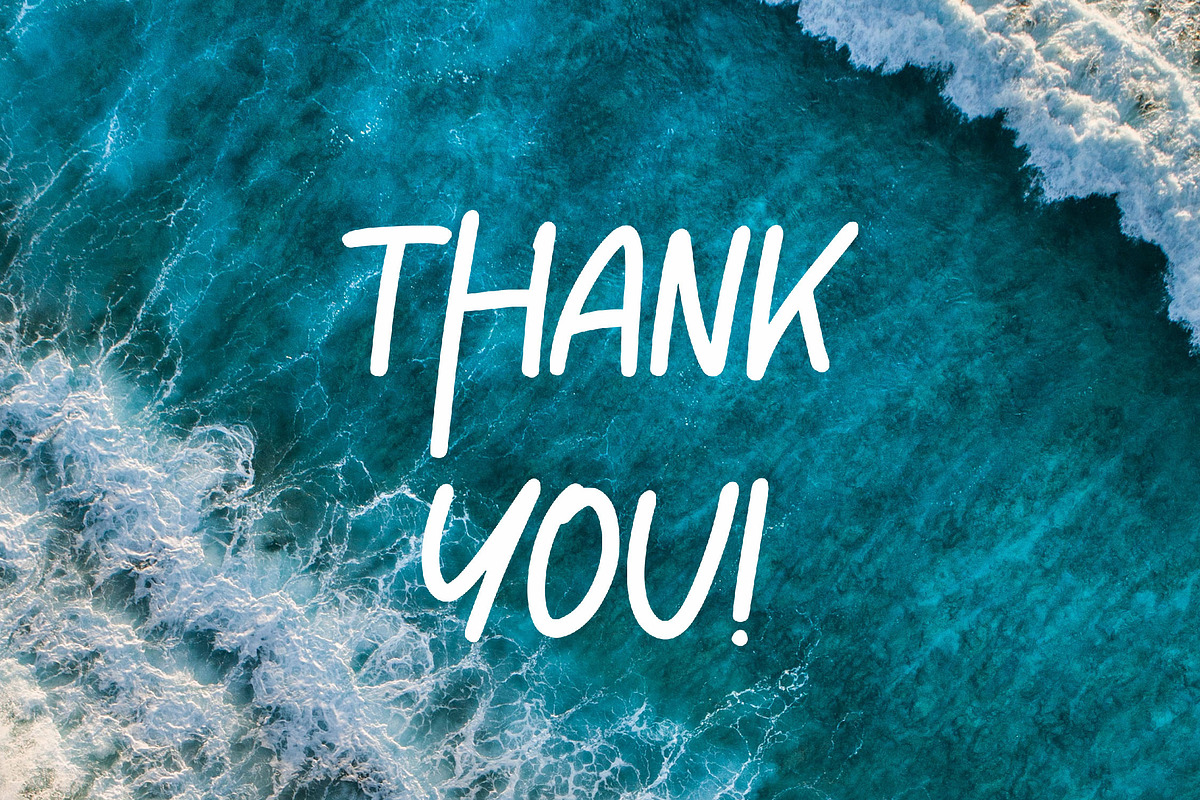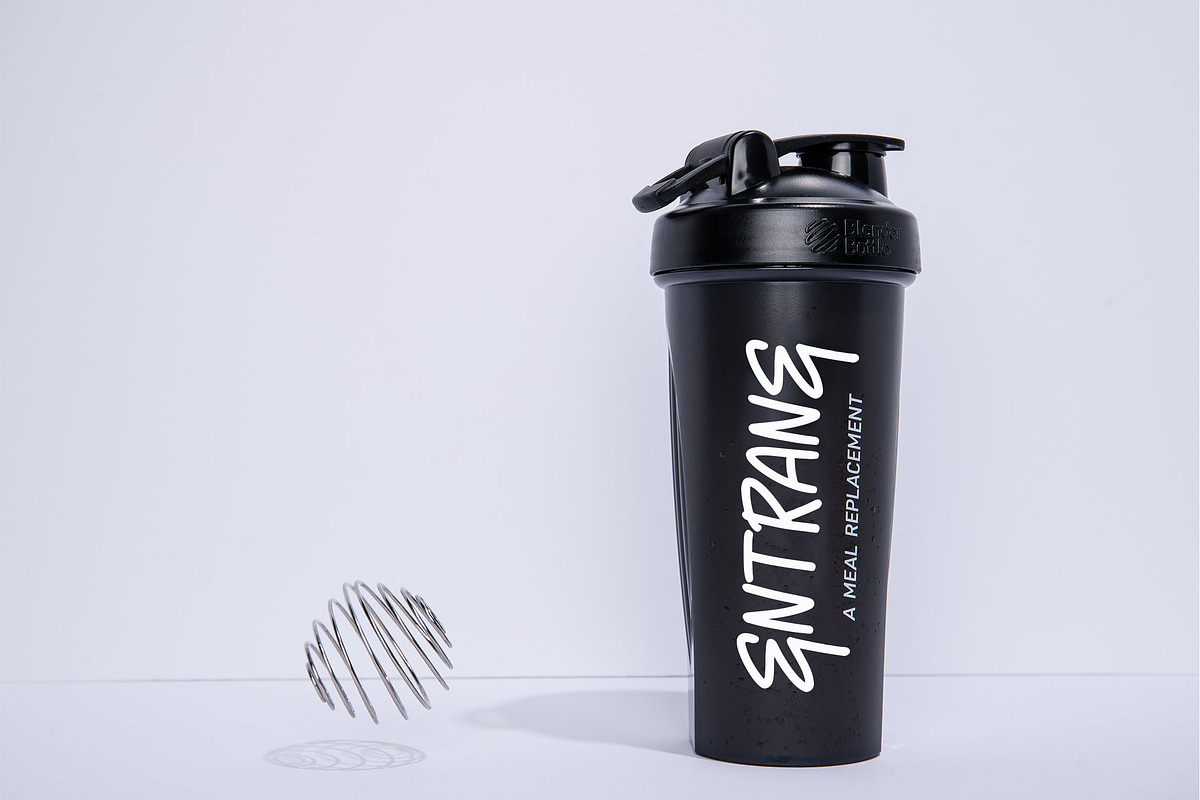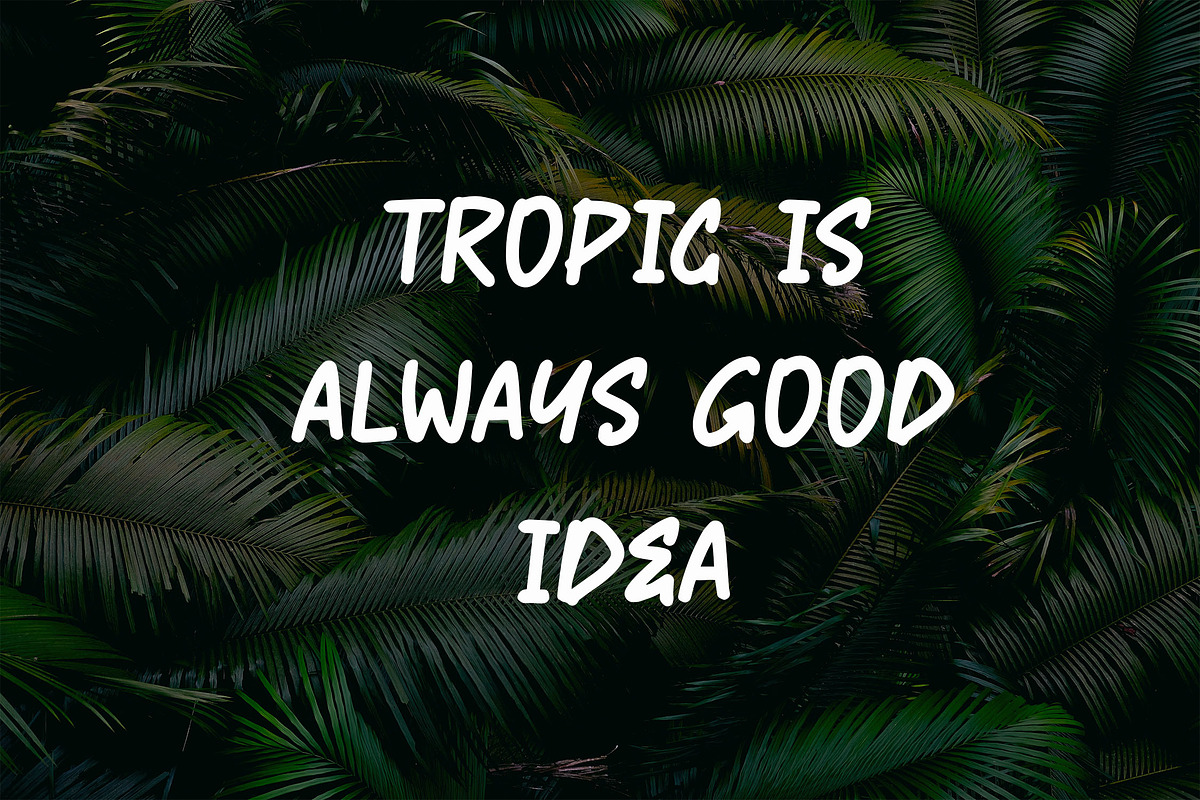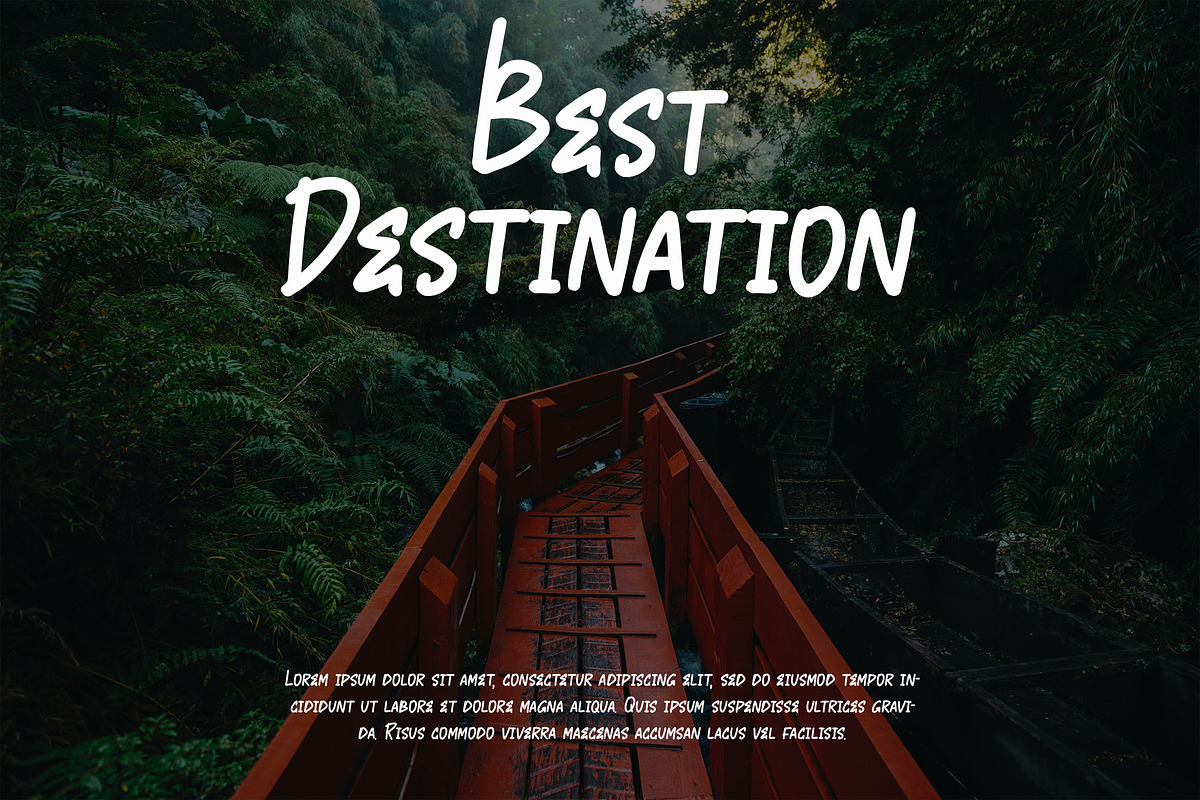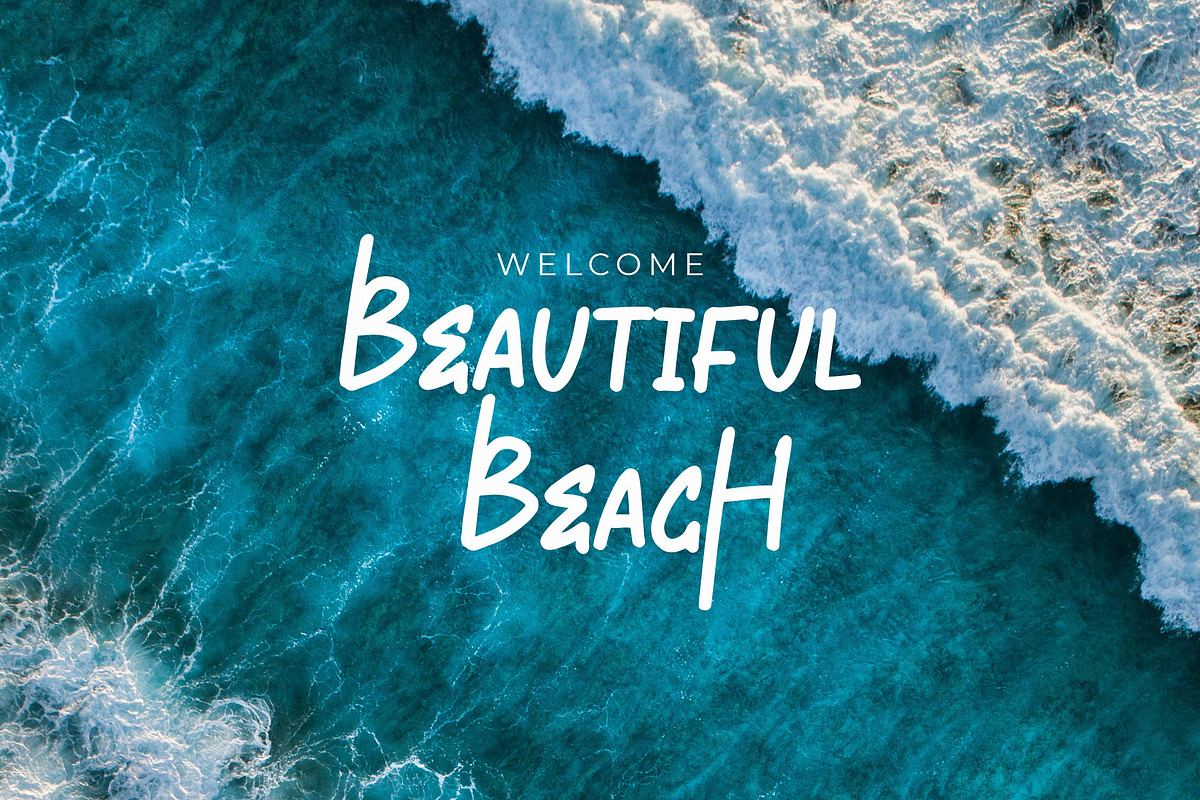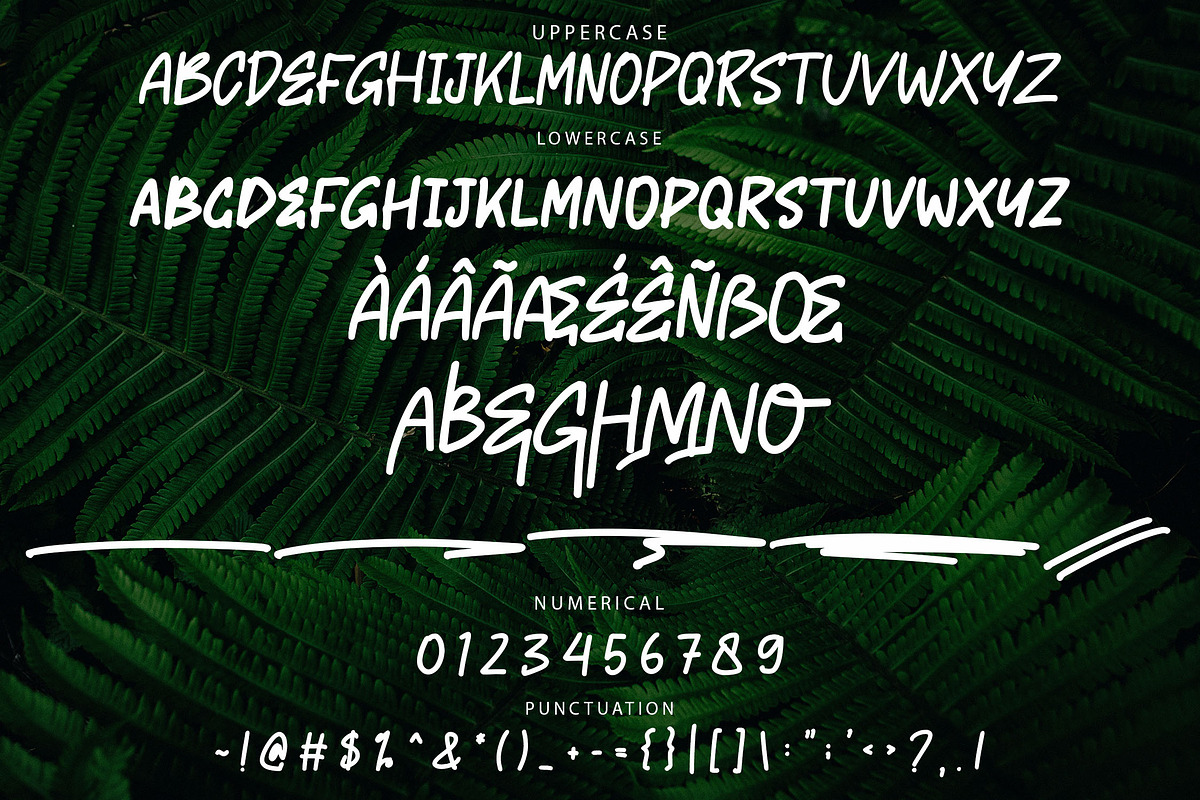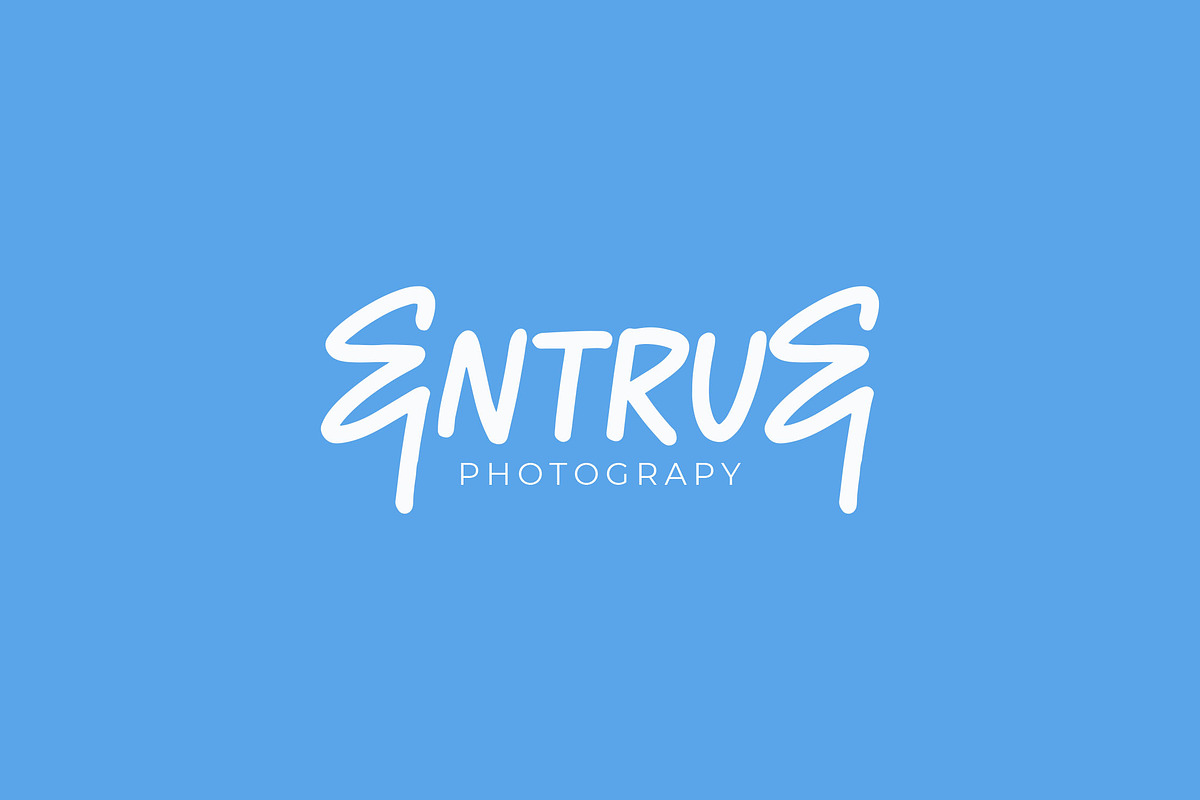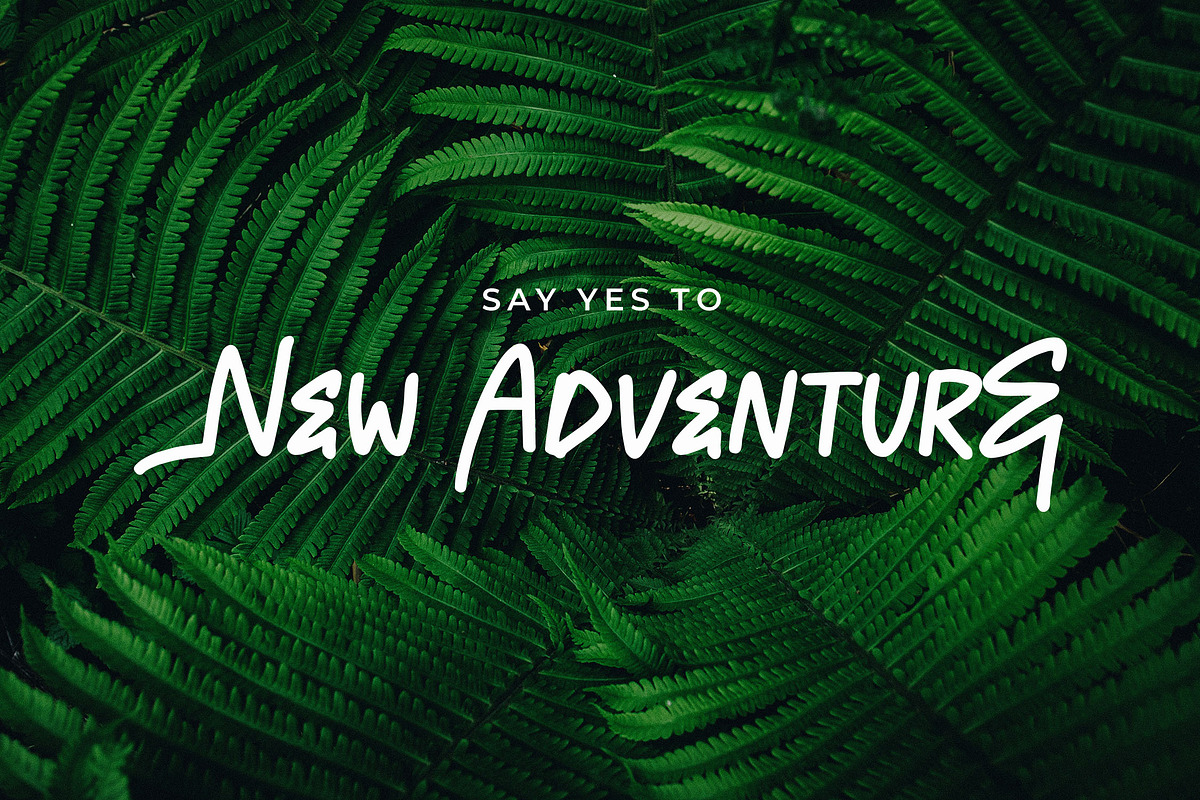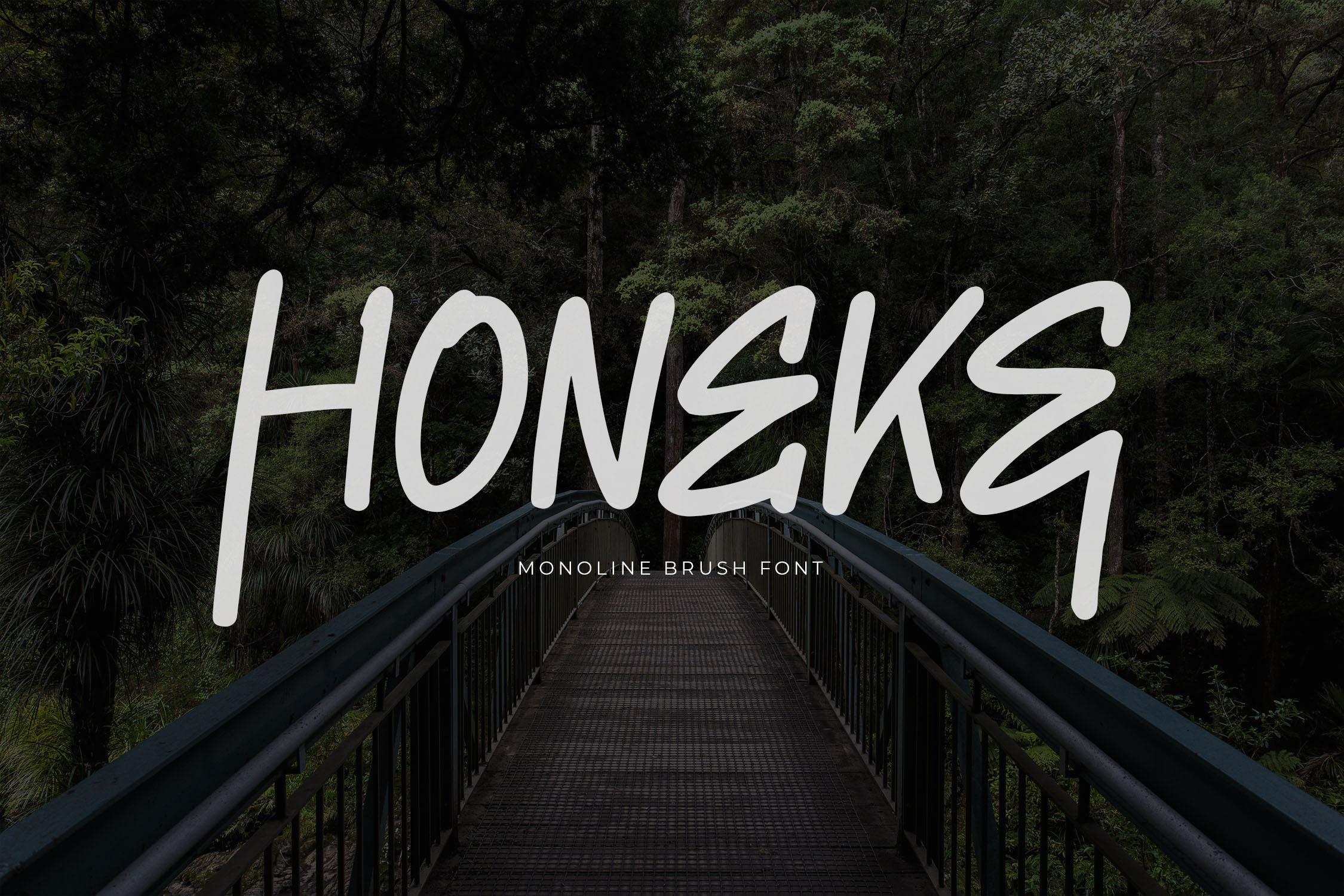
HONEKE Monoline Brush Font
Introducing HONEKE, a bold monoline brush font designed to add unique character to any project. Its distinctive, handcrafted letters offer a stylish touch, perfect for enhancing your graphic designs, branding, or promotional materials. This versatile font supports a wide range of applications and will regularly receive updates to improve functionality.
- Includes ligatures, stylistic alternates, and swashes for creative flexibility
- Full multilingual support for global projects